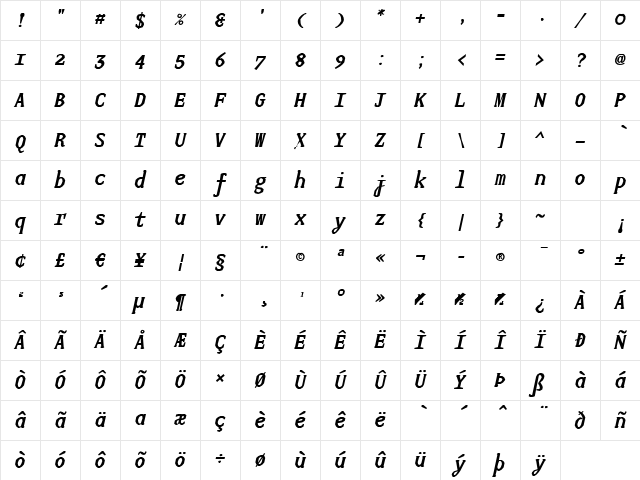
JUstice Mono BoldOblique
Style: BoldOblique
JUstice Mono Family
Design Context for JUstice Mono
JUstice Mono uses fixed-width spacing throughout, giving it the structured, systematic character associated with coding environments and technical documentation. The slanted form adds forward momentum and visual energy. Its bold stroke weight gives it real presence on the page.